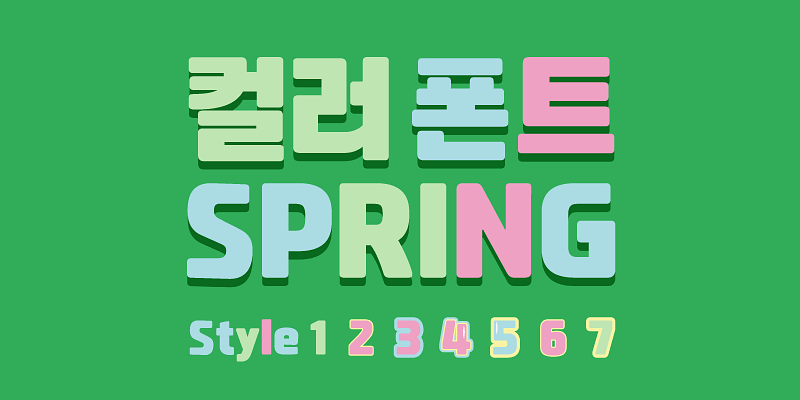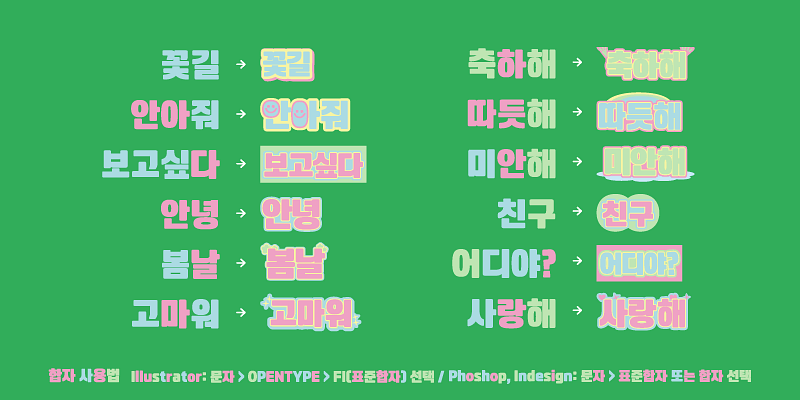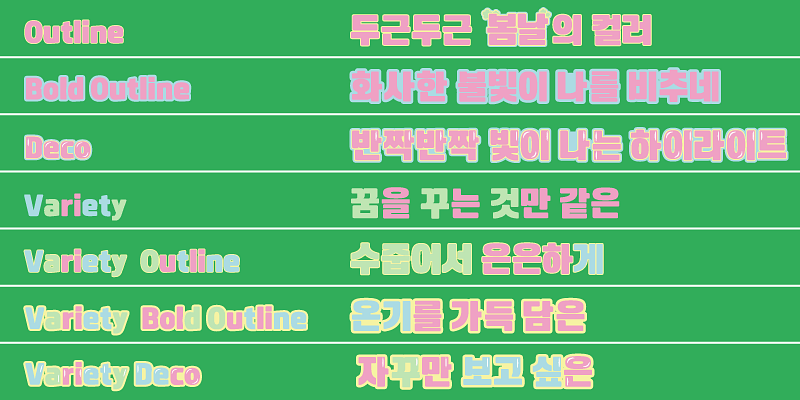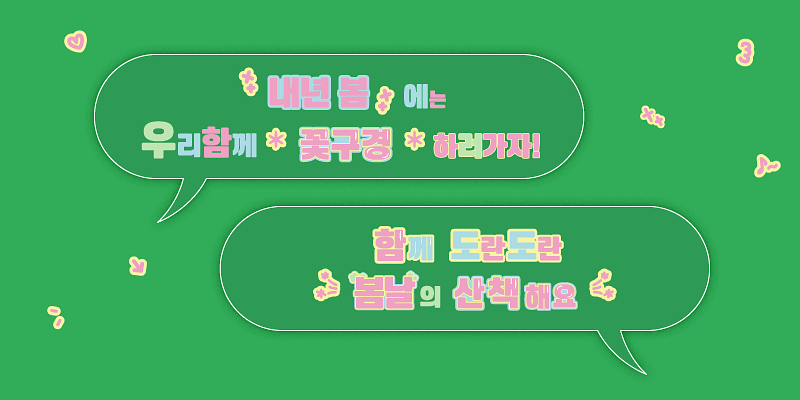
YoonC Spring is a vibrant color font crafted by the Yoondesign Group, a firm dedicated to exploring the evolving nature of typeface application and advancements in font technology. Distinguished by their pictorial attributes, color fonts possess color or texture within the font file itself, eliminating the need for users to manually select a text color. This is a distinctive font that not only has the capability to adorn 20 types of quotation marks with sparkles, but also possesses a special function to emphasize affectionate Korean phrases such as “봄날”, “따뜻해”, “사랑해”, “고마워”, and “보고싶다”.